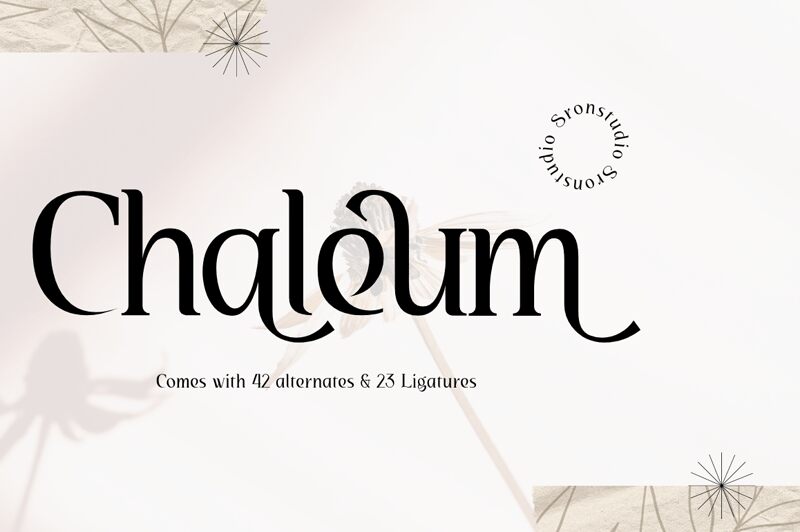
Chaleum Display Font, designed by sronstudio, brings an elegant and modern touch to any project. With its retro serif style, this font is perfect for a wide range of branding endeavors.
Whether you need to create invitations or stationery for weddings, design social media posts or advertisements, package products attractively, or even add a unique touch to your photography watermark, Chaleum has got you covered. Its semi-light weight adds just the right amount of sophistication and readability to your text. The semi-condensed width further enhances its versatility, making it suitable for special events and more creative ventures.
Let Chaleum elevate your designs with its timeless appeal.